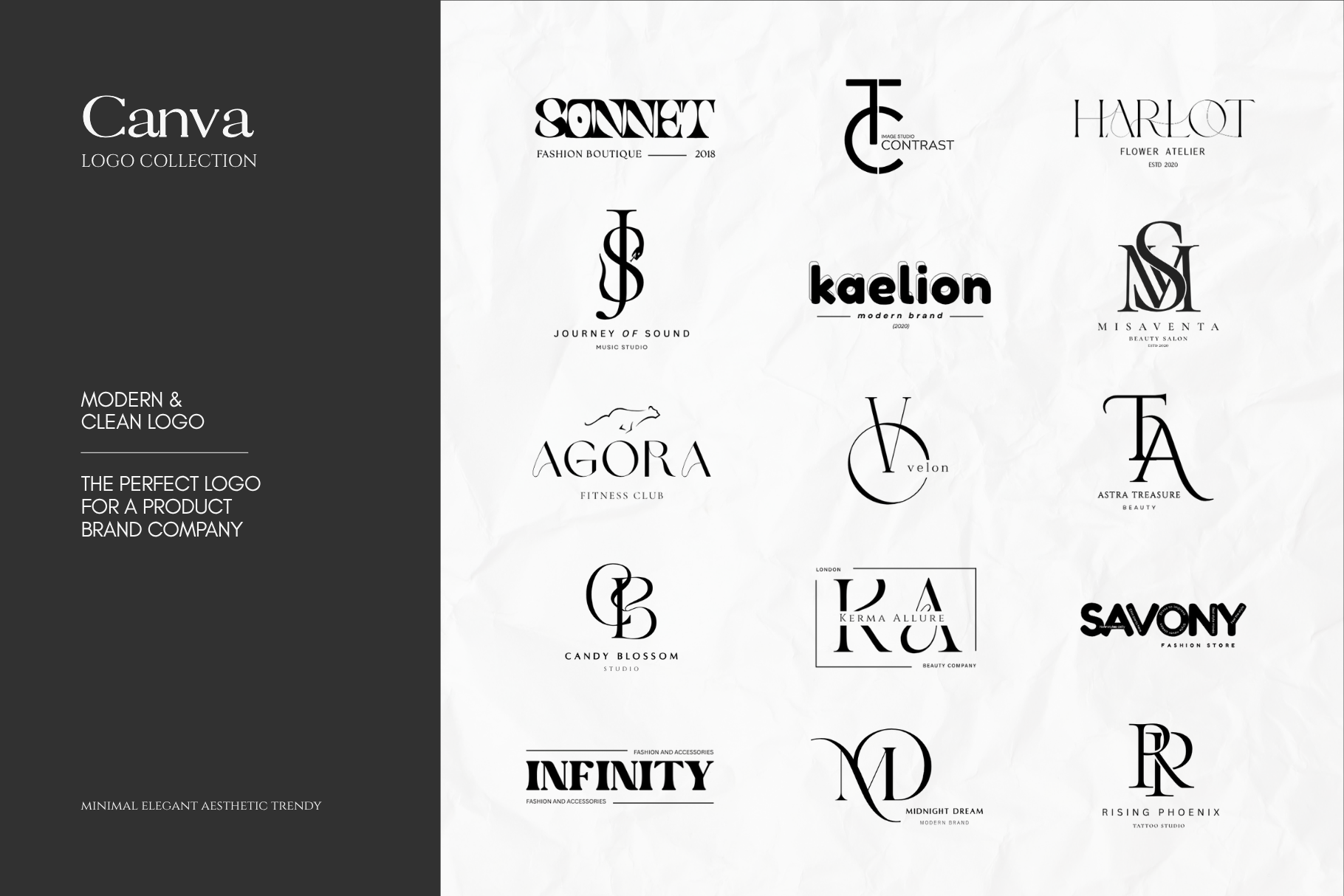
Modern minimal trendy font brand logo
I create modern, elegant, and minimalistic logos for brands that value clean aesthetics, refined style, and professional identity. My logo collection blends geometric precision, sophisticated typography, and contemporary layouts—resulting in distinctive, memorable branding for any niche.
The collection features multiple styles:
— monogram logos
— fashion & beauty branding
— identity for studios, designers, boutiques, salons, clubs, and modern brands
— universal minimal logos suitable for any business
Each logo is crafted with a balanced visual structure to ensure your brand looks premium, stylish, and consistent across all platforms — from social media to printed materials.
Key features of my work:
• elegant, minimal aesthetic;
• clean and modern forms;
• refined typography and unique compositions;
• suitable for fashion, beauty, lifestyle, and creative brands;